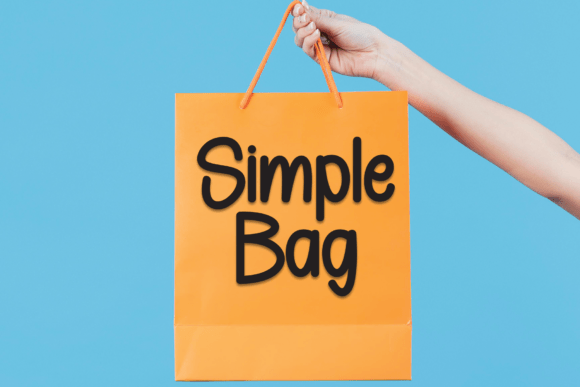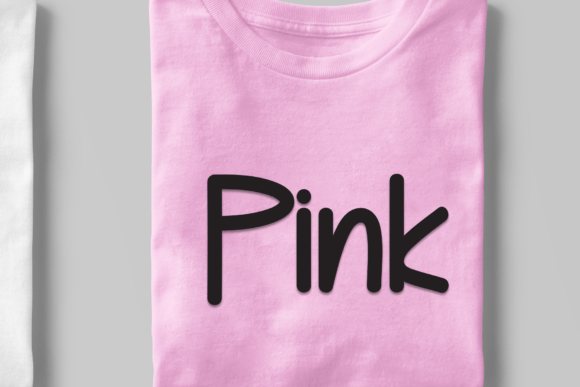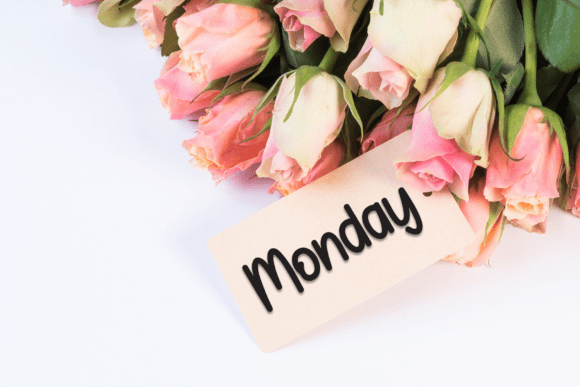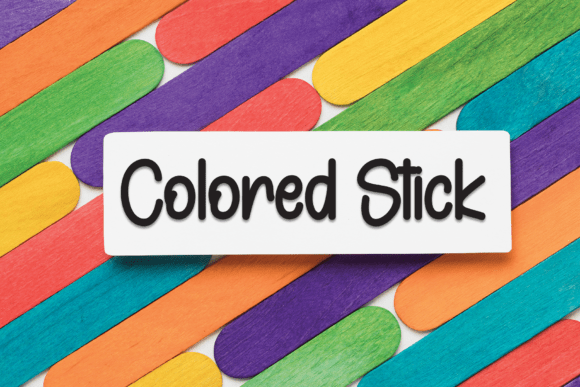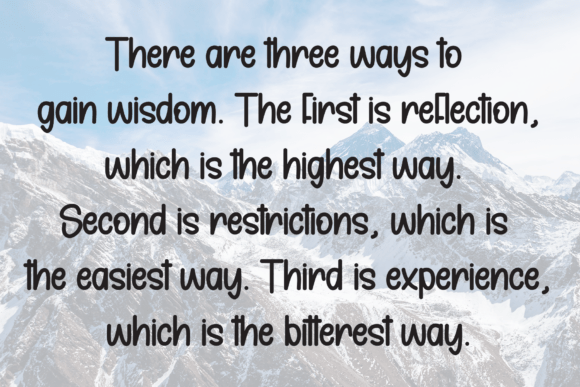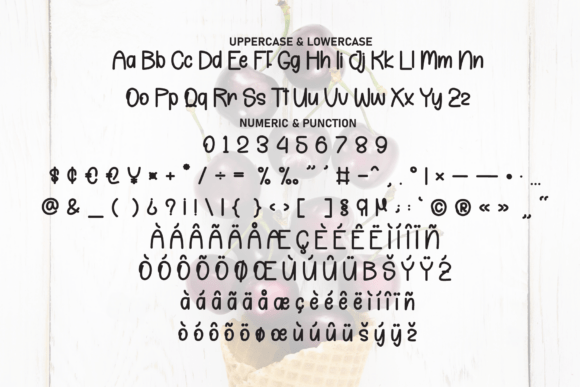
Introducing Cherry Font: The Perfect Blend of Freshness and Friendliness
In the world of typography, fonts play a crucial role in conveying the tone and personality of a brand or design. For designers and crafters looking for a font that exudes a fresh, friendly vibe, Cherry Font is an excellent choice. This casual and neat display font is designed to add a touch of charm and clarity to various projects, from packaging and posters to social media graphics.
The Characteristics of Cherry Font
So, what makes Cherry Font stand out from the rest? Here are some of its key characteristics:
- Clean Lines: Cherry Font features clean lines that give it a crisp and modern look. This makes it perfect for designs that require a bit of sophistication without being too formal.
- Relaxed Structure: The font’s relaxed structure adds to its friendly and approachable vibe. It’s ideal for designs that need to convey a sense of ease and casualness.
- Polished Appearance: Despite its casual nature, Cherry Font maintains a polished appearance that ensures your designs look professional and put-together.
Uses of Cherry Font
Cherry Font’s versatility makes it suitable for a wide range of design projects. Here are some of the ways you can use this font:
- Packaging: Add a touch of freshness to your product packaging with Cherry Font. Its clean lines and relaxed structure make it perfect for labeling products, especially those related to food, cosmetics, or lifestyle.
- Posters: Create eye-catching posters with Cherry Font. Its display font style ensures that your message stands out, making it ideal for advertising, events, or promotional materials.
- Social Media Graphics: Cherry Font is also great for social media graphics, including Facebook posts, Instagram stories, and Twitter headers. Its friendly vibe helps engage your audience and adds a personal touch to your online presence.
Why Choose Cherry Font?
With so many fonts available, why should you choose Cherry Font for your designs? Here are a few compelling reasons:
- Unique Personality: Cherry Font has a unique personality that sets it apart from other fonts. Its blend of freshness and friendliness makes it perfect for brands that want to convey a sense of approachability.
- Ease of Use: This font is incredibly easy to use, even for those who are new to design. Its clean lines and simple structure make it effortless to read and work with.
- Versatility: Cherry Font’s versatility ensures that it can be used across various design projects, from digital graphics to print materials.
Tips for Using Cherry Font Effectively
To get the most out of Cherry Font, here are some tips to keep in mind:
- Pair it with Other Fonts: Cherry Font pairs well with other fonts, especially those with a similar friendly vibe. Experiment with different combinations to find the perfect match for your design.
- Use it for Headings: Cherry Font is perfect for headings and titles. Use it to draw attention to important information and add visual interest to your designs.
- Experiment with Colors: Cherry Font looks great in various colors, from bright and bold to soft and pastel. Experiment with different colors to find the perfect fit for your brand or design.
Cherry Font is a fantastic addition to any designer’s toolkit. Its unique blend of freshness and friendliness makes it perfect for a wide range of projects, from packaging and posters to social media graphics. With its clean lines, relaxed structure, and polished appearance, Cherry Font is sure to add charm and clarity to your designs. So why not give it a try and see how it can elevate your designs?